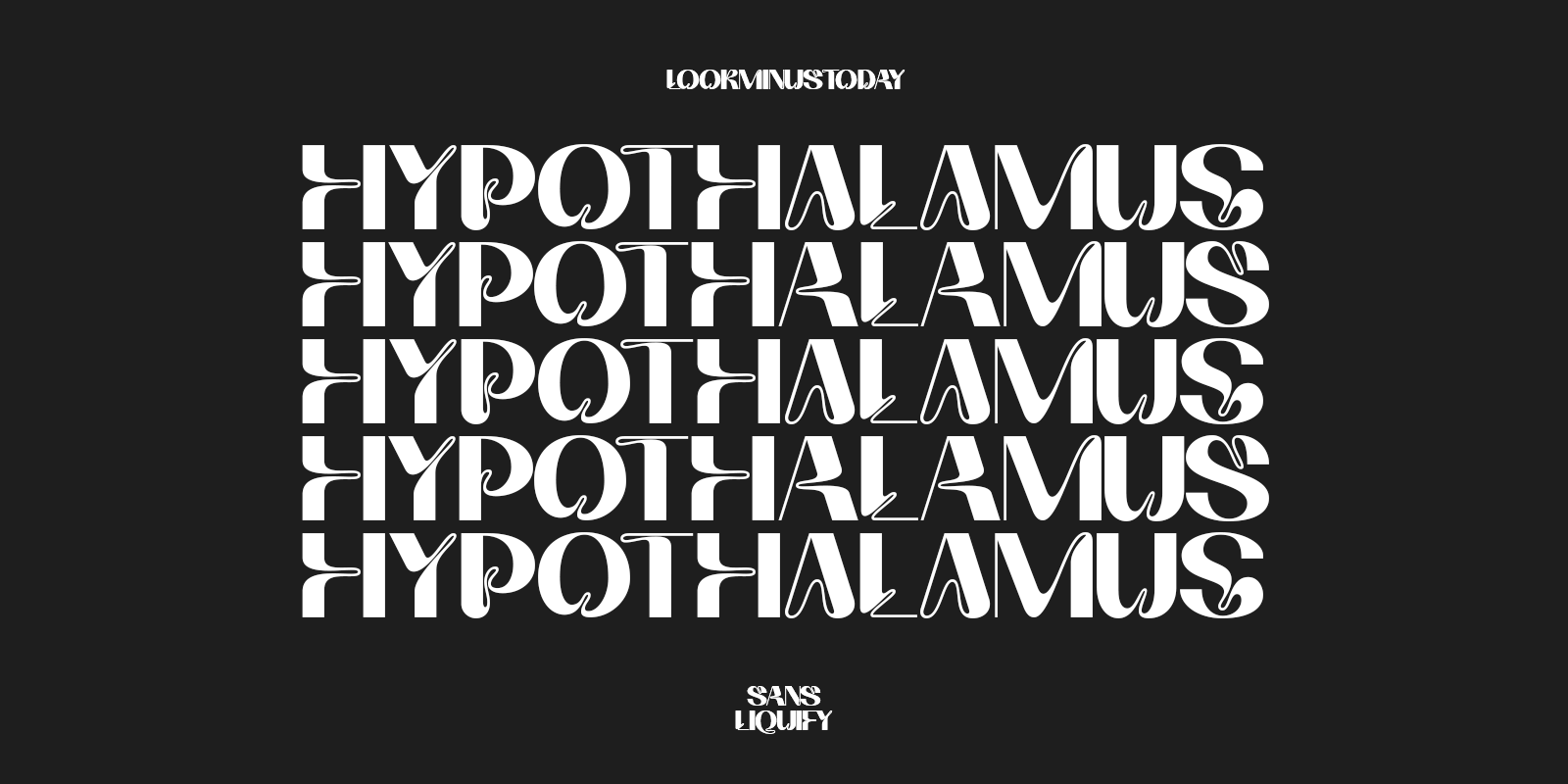
HYPOTHALAMUS Font is ideal for neuroscience research institutions, medical brain imaging centers, neurological clinic branding, cognitive science publications, brain health awareness campaigns, and neurotechnology company logos.
HYPOTHALAMUS Font is exciting because it captures the intricate complexity and neural precision of brain science, delivering a scientifically sophisticated typeface that embodies neurological research, cognitive understanding, and the fascinating mysteries of human consciousness.
The HYPOTHALAMUS Font family includes neural variations: HYPOTHALAMUS Light, HYPOTHALAMUS Regular, HYPOTHALAMUS Bold, synaptic alternates, and decorative elements inspired by neural networks and brain anatomy structures.
Unlock cognitive potential with HYPOTHALAMUS Font Free Download, a scientifically engineered typeface that brings neurological precision and brain science authority to your most advanced medical design projects. This sophisticated font excels in creating memorable branding for neurology practices, brain research laboratories, cognitive therapy centers, and medical technology companies that advance our understanding of the human brain and nervous system. The precisely designed letterforms feature neural network patterns and synaptic details that communicate scientific accuracy, medical expertise, and neurological sophistication while ensuring excellent readability across all medical and scientific applications. Perfect for neuroscience conference materials, brain health educational programs, neurological research publications, and cognitive assessment tools that need to convey medical authority and scientific credibility, this font connects with healthcare professionals and researchers who dedicate their careers to understanding brain function. Each character processes with neural precision, making every neurological message feel like a scientific breakthrough that advances our understanding of consciousness and cognitive function. HYPOTHALAMUS Font transforms medical communications into authoritative statements that honor neurological research while inspiring continued advancement in brain science that improves lives through better understanding of the remarkable human mind.